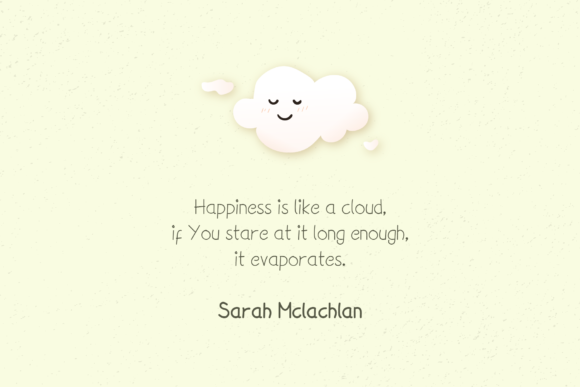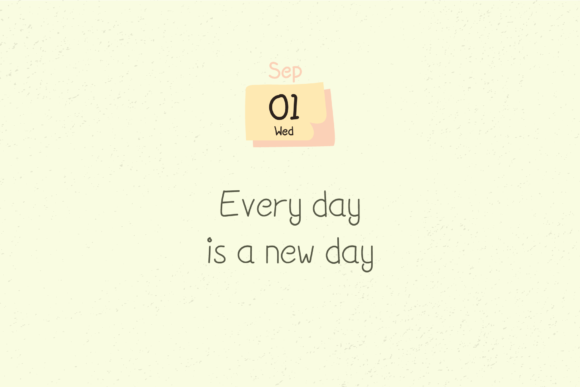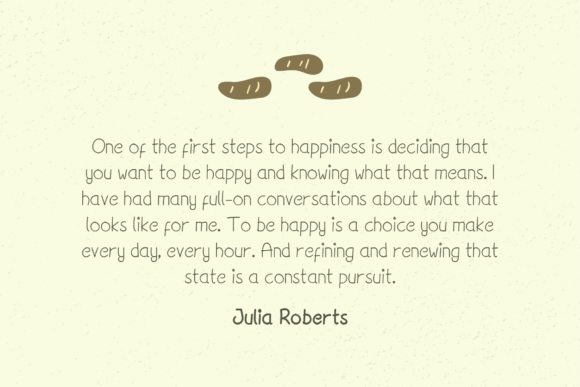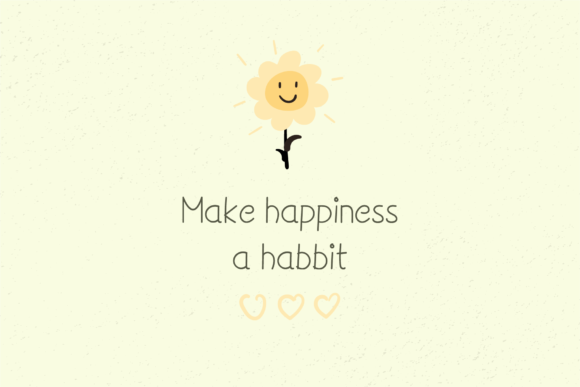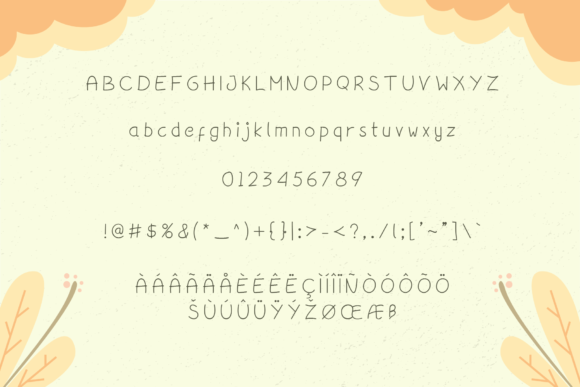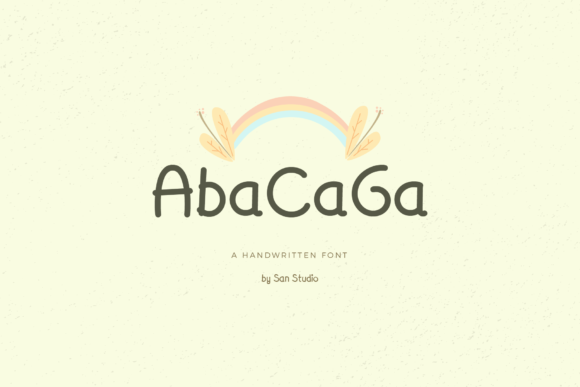
The AbaCaGa Font: A Cute and Simple Handwritten Font for Creative Projects
Have you ever been working on a design project, and suddenly, you’re stuck on finding the perfect font? I recall a recent experience where I was creating a chalkboard-style quote for a client’s social media campaign. I scoured the internet for hours, but nothing seemed quite right. That was until I stumbled upon the AbaCaGa font. Its authentic, handwritten look immediately caught my attention, and I knew I had found the perfect fit.
An Honest Review of AbaCaGa Font
What I Love About AbaCaGa Font ✨
• ✅ Cute and Simple Design: AbaCaGa has a charming, handwritten look that’s perfect for chalkboard quotes, teaching materials, and more.
• ✅ Authentic Feel: The font’s imperfections and irregularities give it a personal and realistic feel that’s hard to achieve with more polished fonts.
• ✅ Versatility: AbaCaGa can be used for a wide range of projects, from educational materials to social media graphics and even craft projects.
• ⚠️ Limited Multilingual Support: AbaCaGa’s character set might be limited for non-English languages, so be sure to check the font’s specifications before using it for multilingual projects.
• ⚠️ No Oblique or Italic Style: If you prefer fonts with an italic or oblique style, you might find AbaCaGa’s single style a bit limiting.
The Designer Inspiration Behind AbaCaGa
AbaCaGa was designed with the intention of creating a font that would bring a personal touch to chalkboard-style designs. The font’s creator wanted to craft a font that would look like it was written with chalk on a blackboard, imperfections and all. The result is a font that’s both charming and authentic.
Font Name AbaCaGa Font
Author Patuh Karya
Q: What is the AbaCaGa font best used for?
A: AbaCaGa is perfect for chalkboard quotes, teaching materials, social media graphics, and craft projects that require a personal and realistic feel.
Q: Is AbaCaGa a multilingual font?
A: AbaCaGa’s character set might be limited for non-English languages, so be sure to check the font’s specifications before using it for multilingual projects.